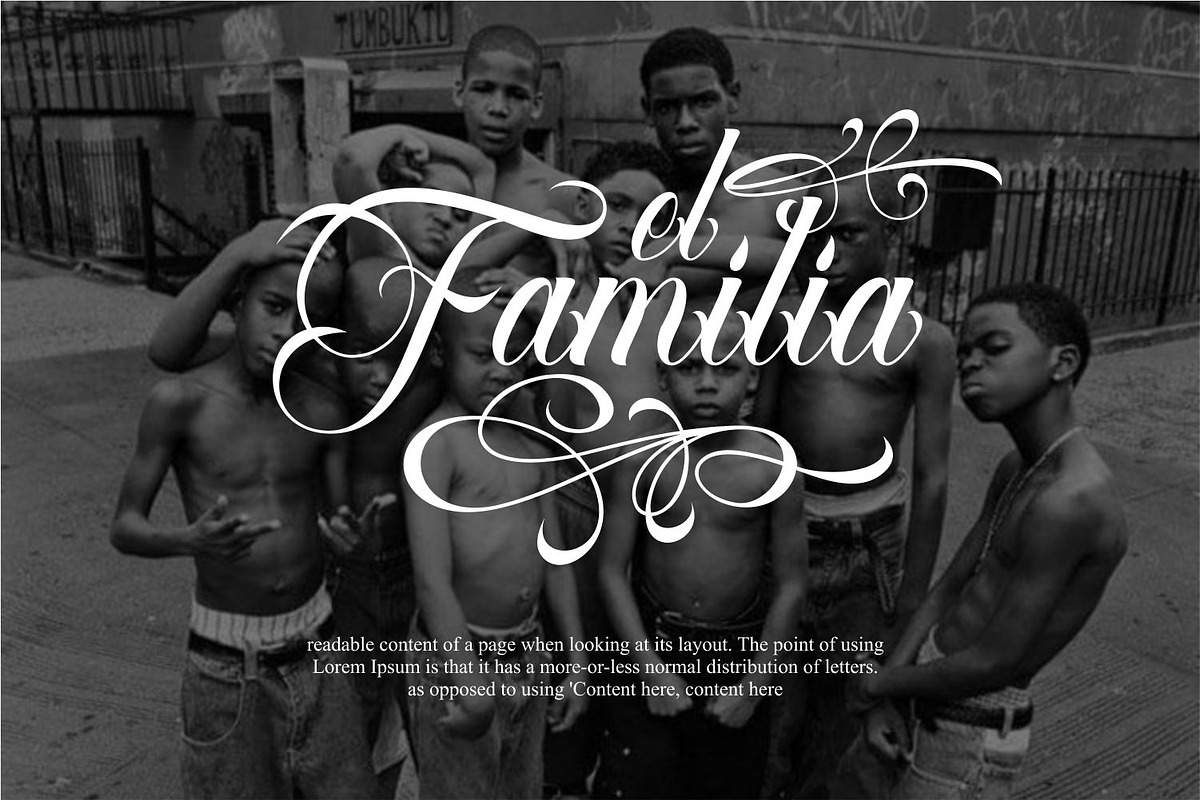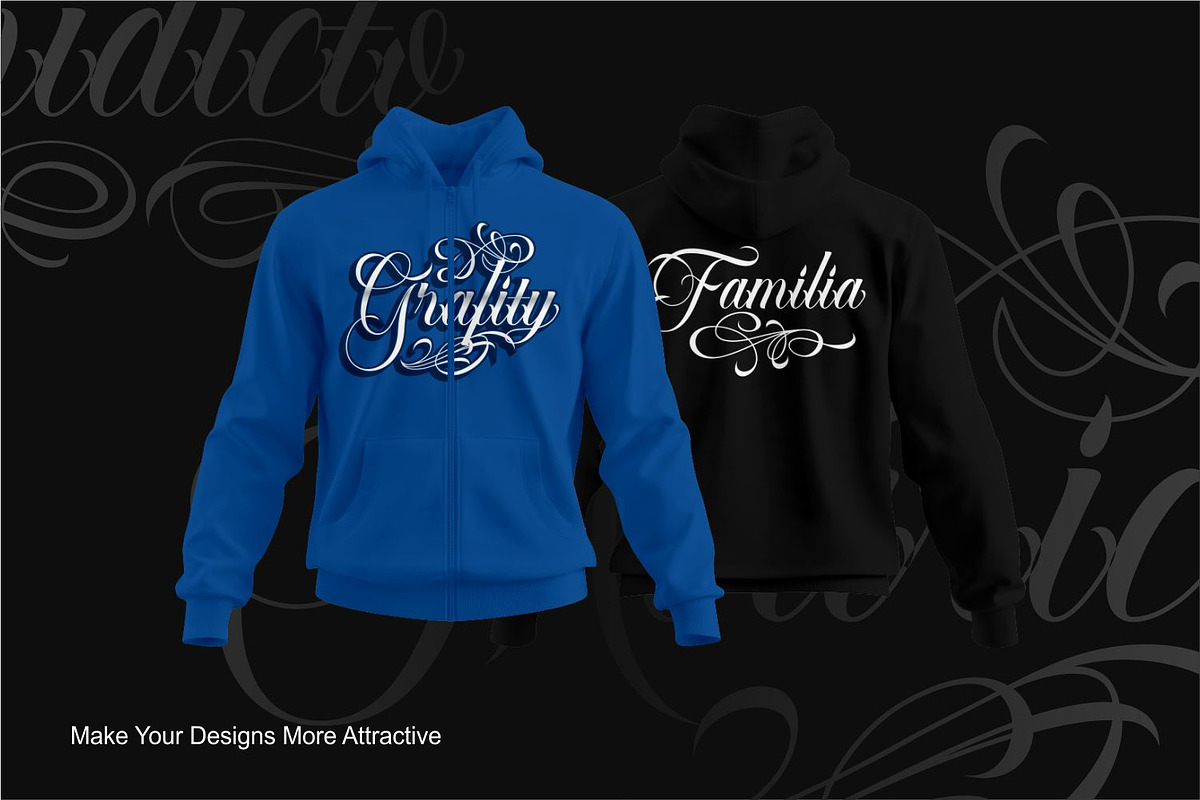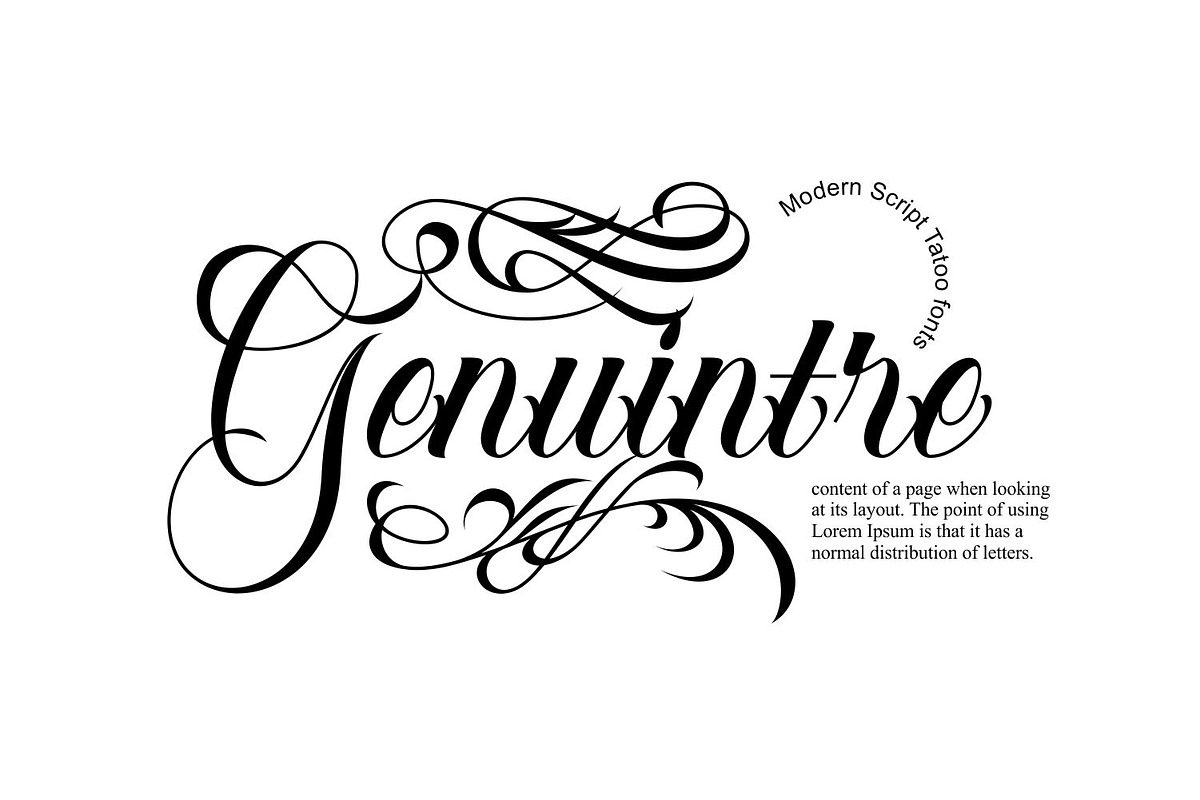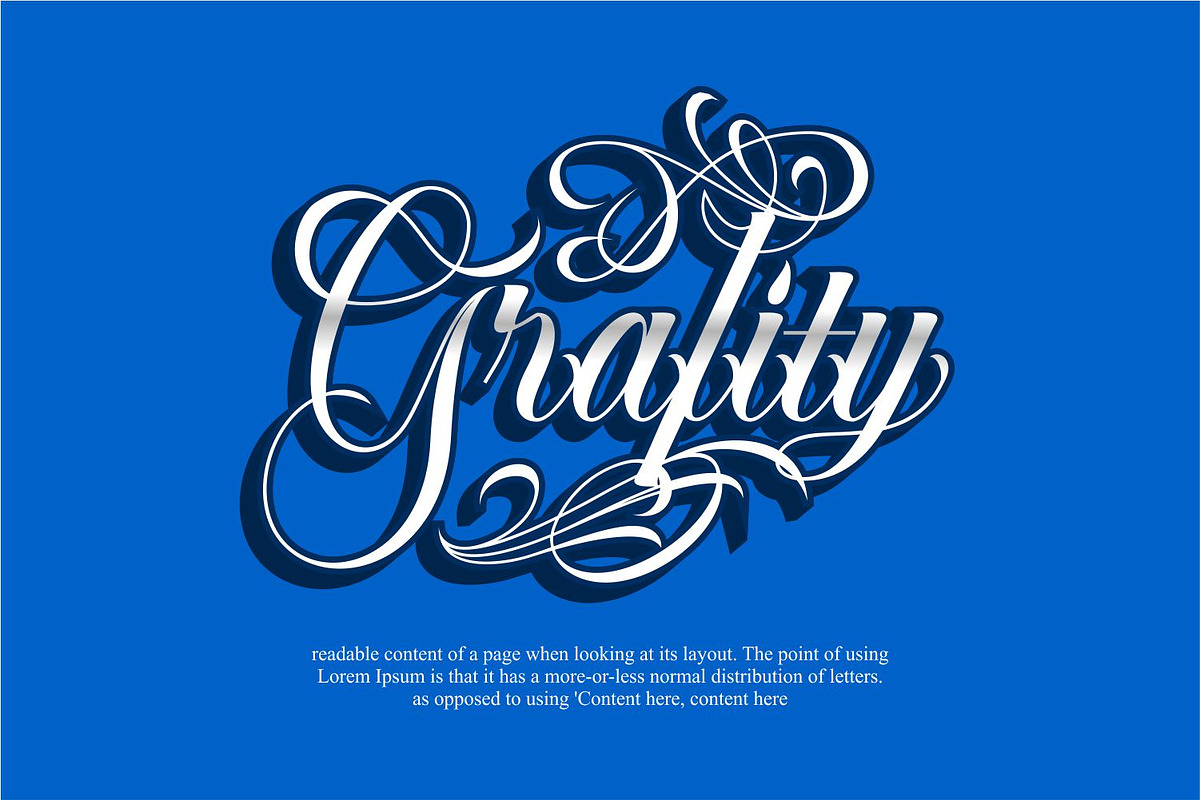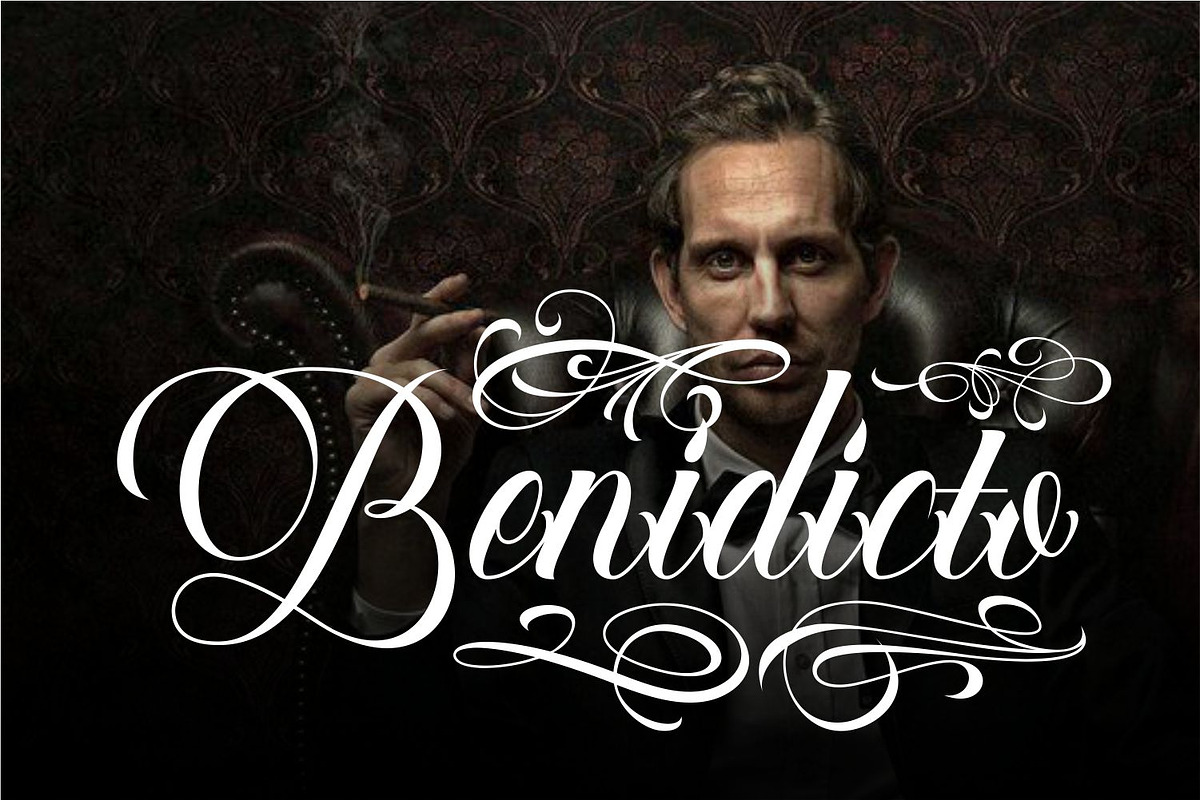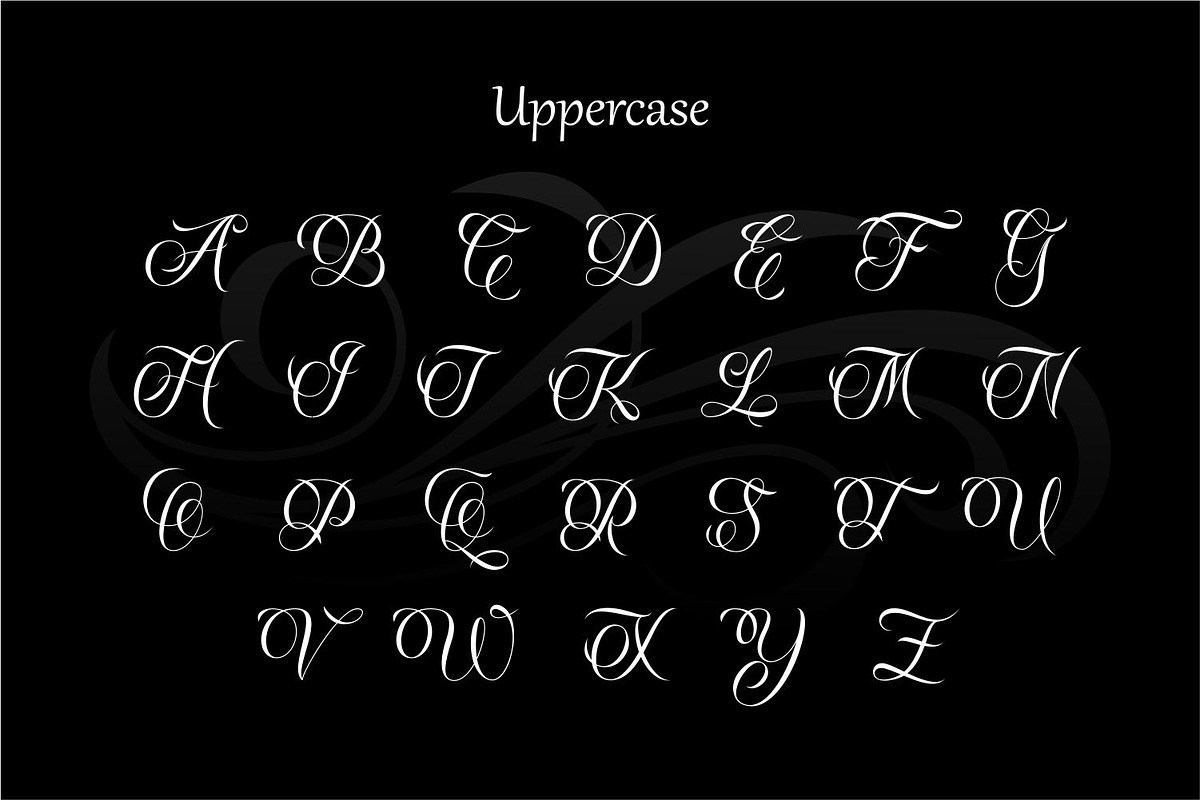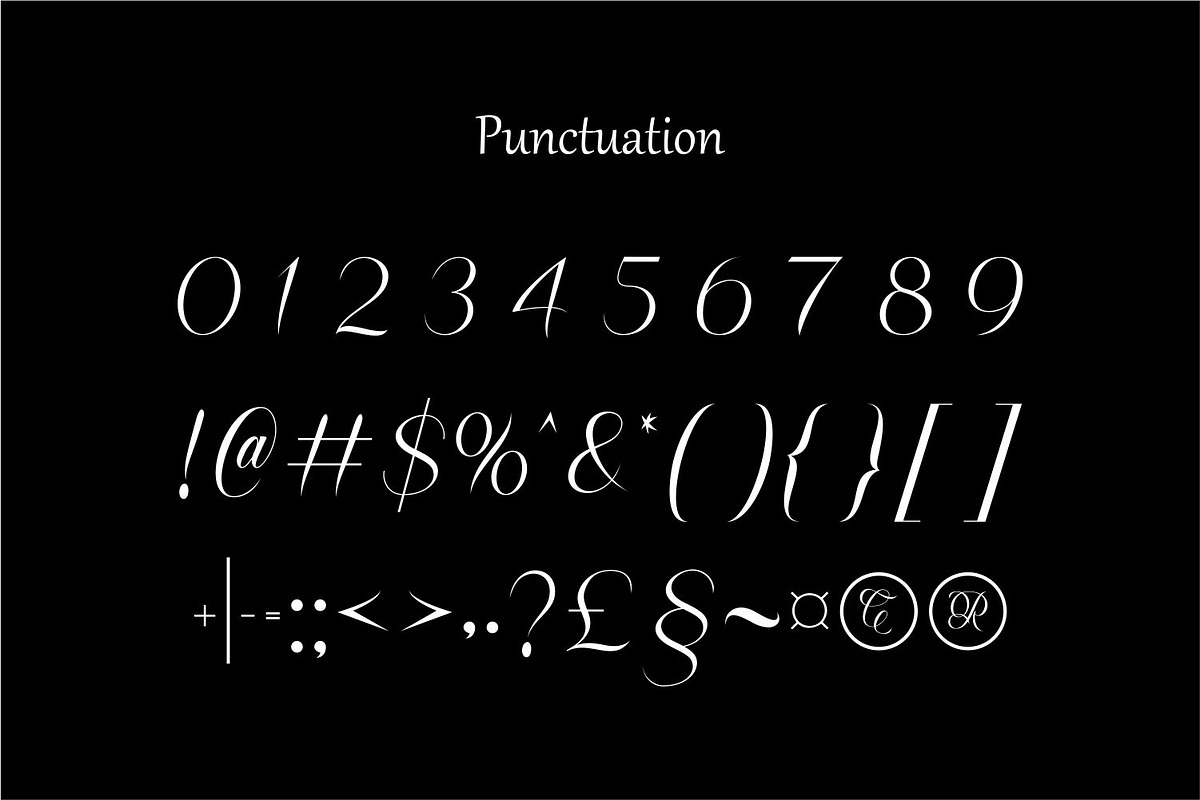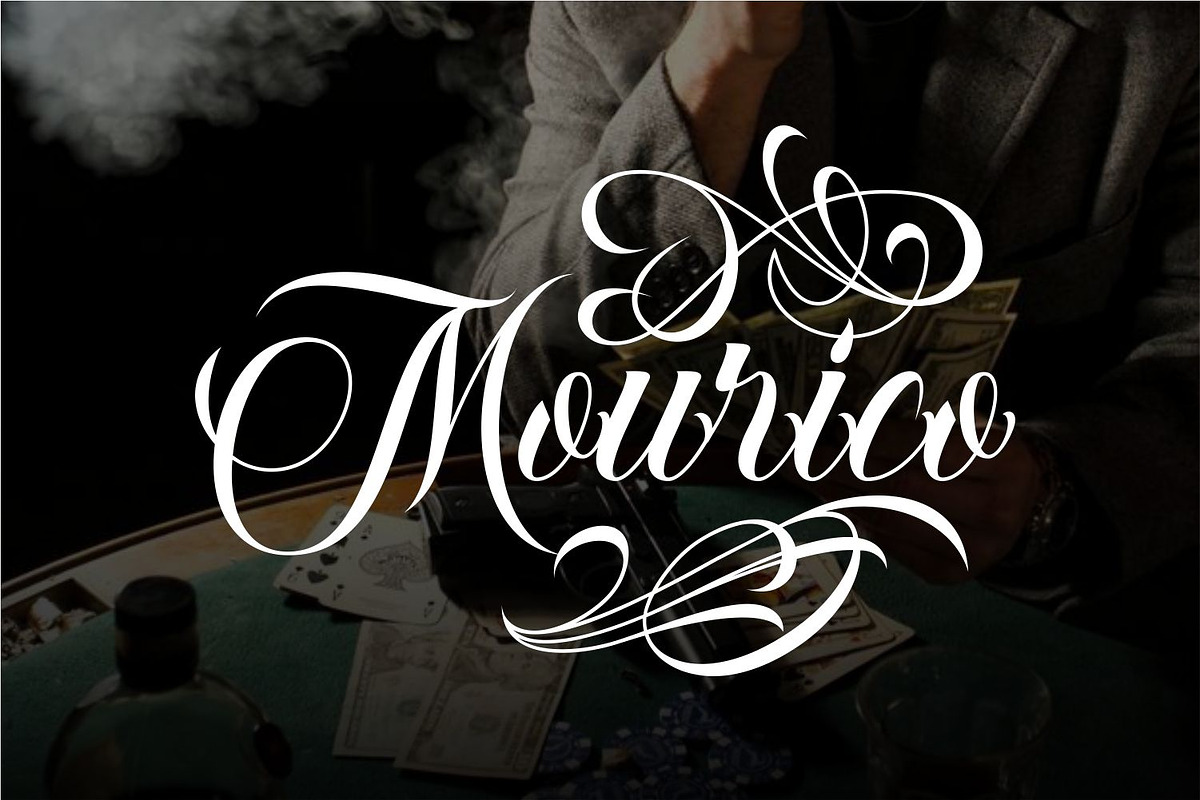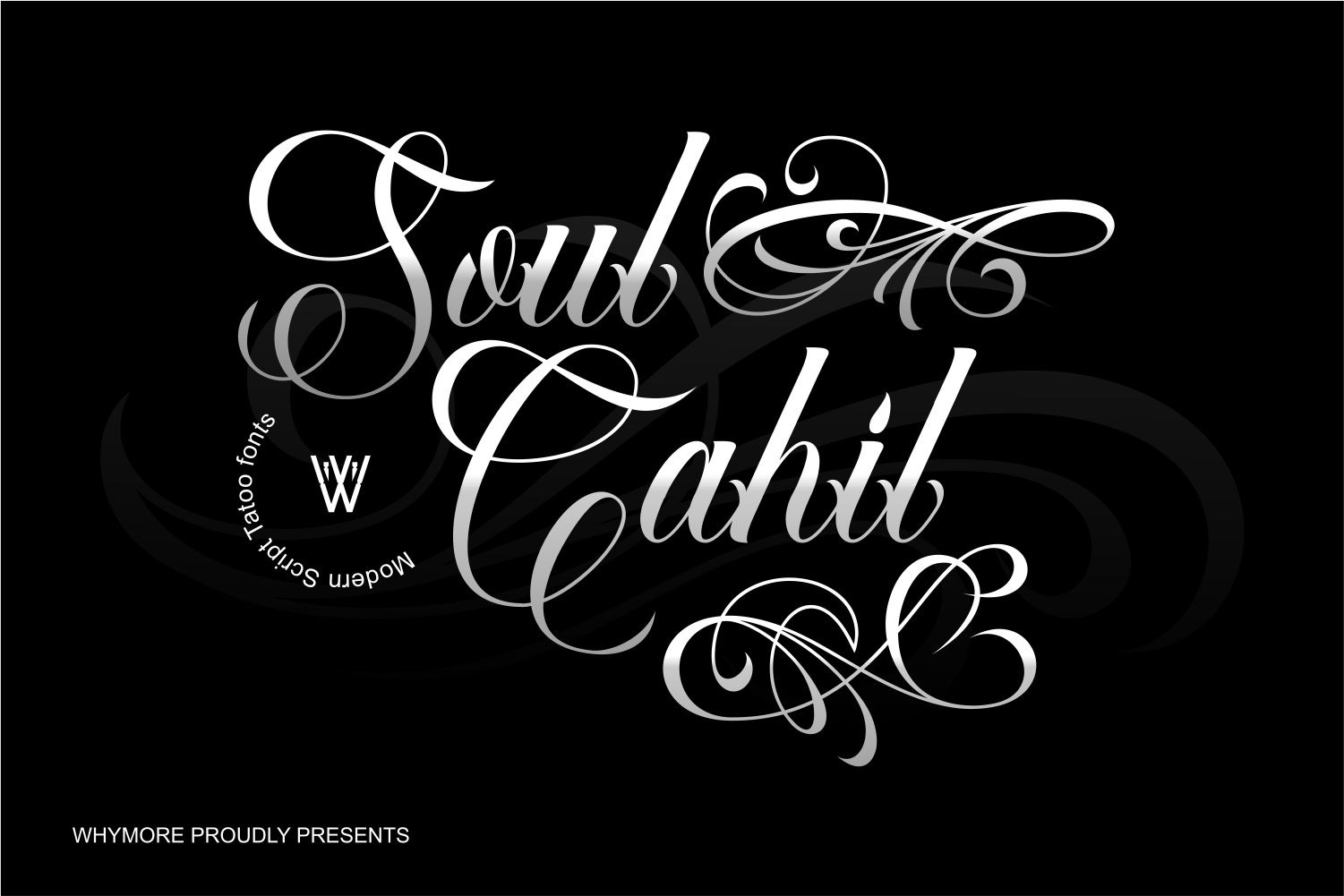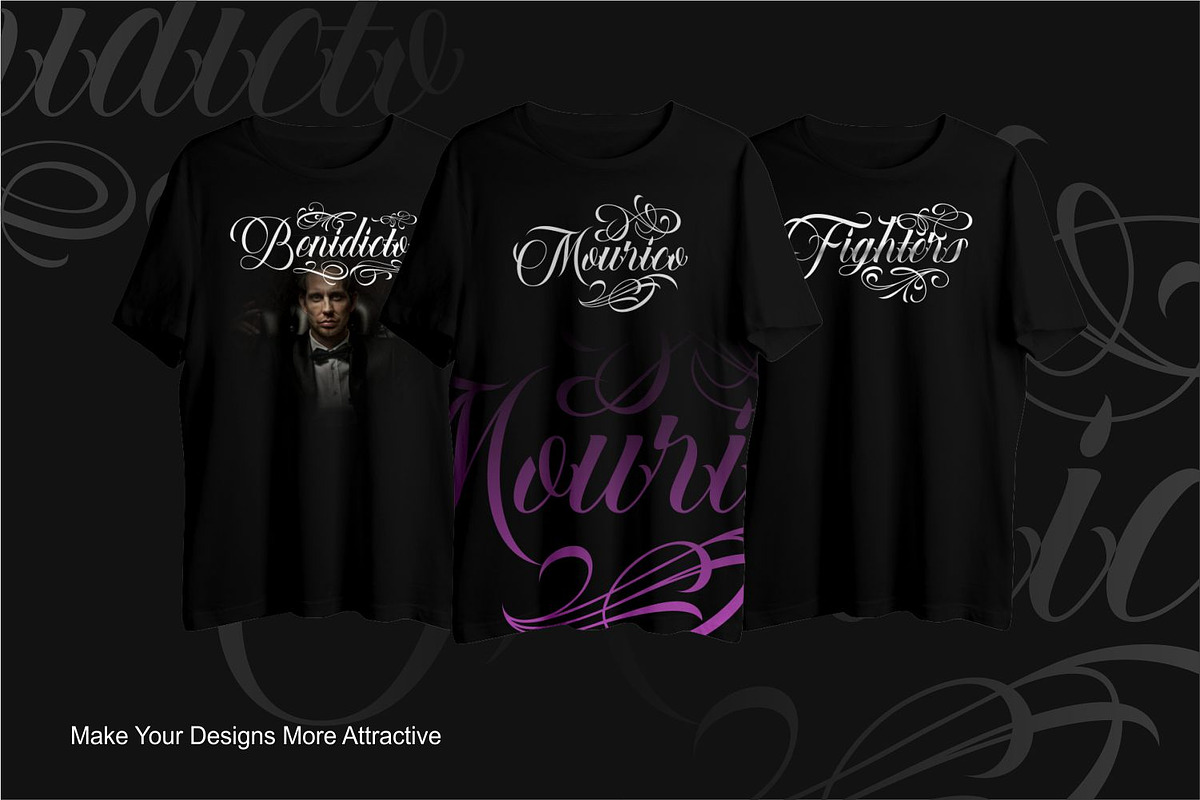
Soul Cahill Tattoo Font
Elevate your design projects with our "Soul Cahill Tattoo Font | Blackletter, Chicano, Old English Fonts | Procreate & Photoshop Ready | Perfect for Custom Tattoos T-Shirts POD", meticulously crafted for artists and designers seeking authentic tattoo-inspired typography. This collection features a diverse range of blackletter calligraphy fonts, perfect for custom tattoo designs, logos, t-shirt prints, and more. Compatible with Procreate and Photoshop, these fonts offer seamless integration into your creative workflow. Each font is designed to provide versatility and uniqueness, ensuring your designs stand out.